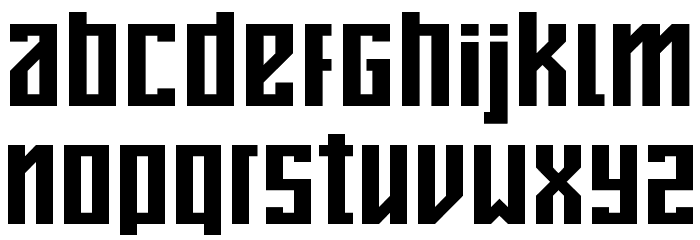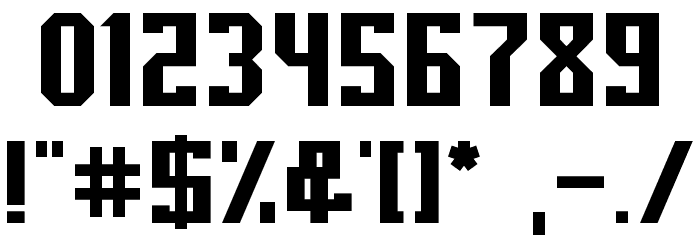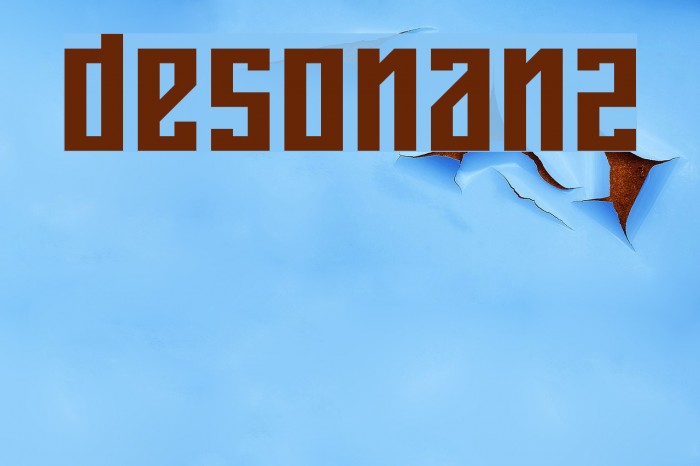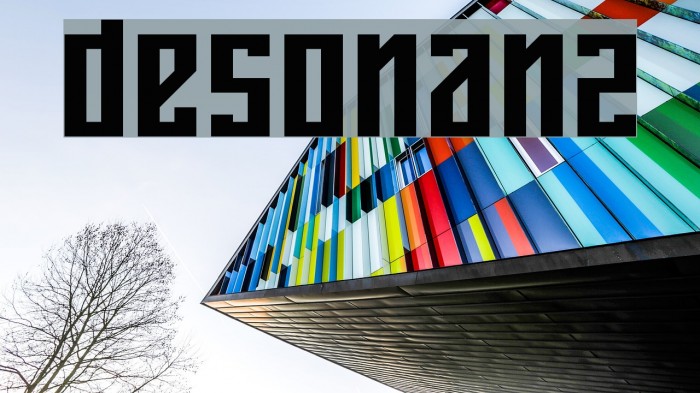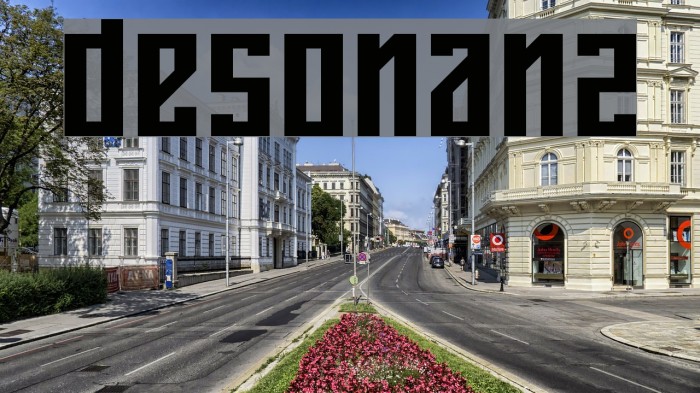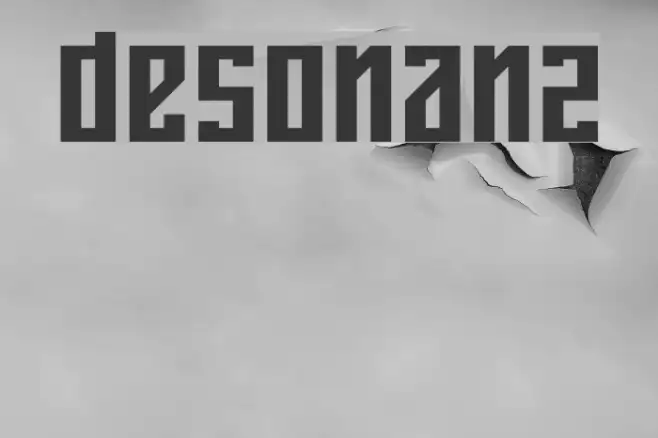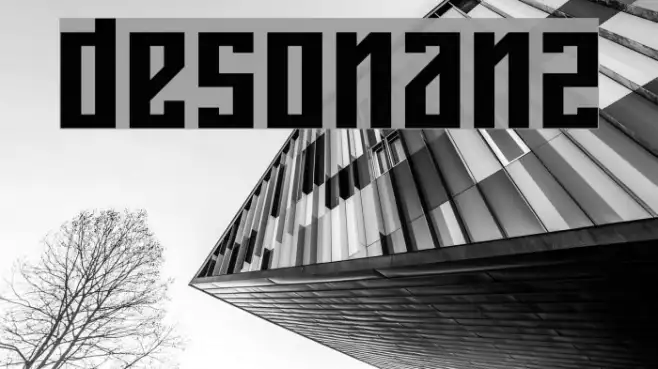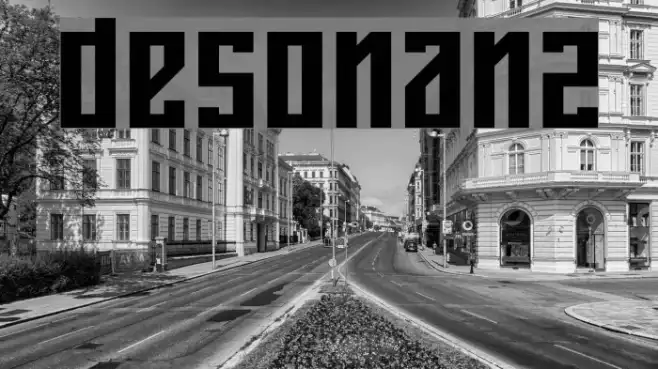
desonanz Font
This font exhibits a bold and geometric style with a strong presence. The characters are constructed with sharp angles and straight lines, giving it a modern and industrial feel. The uppercase and lowercase letters maintain a consistent height, contributing to a uniform appearance. The numerals and special characters are designed to match the angular and robust nature of the alphabet. This font's distinct and edgy look makes it suitable for attention-grabbing designs.
A bold, geometric font with sharp angles and a modern industrial style.
- Proposed Projects: Ideal for posters, logos, branding, and any design requiring a strong, modern aesthetic.